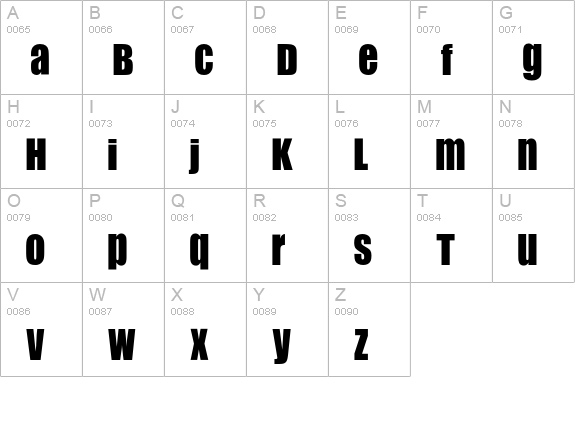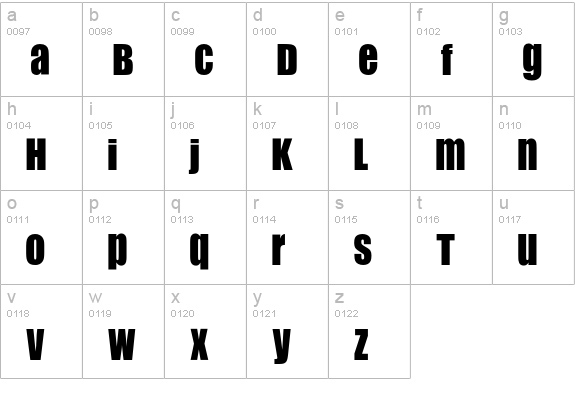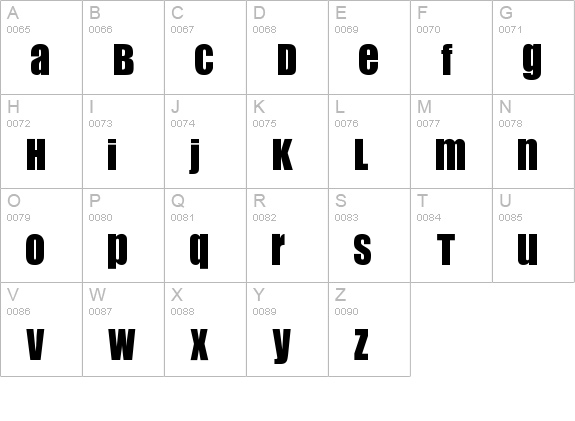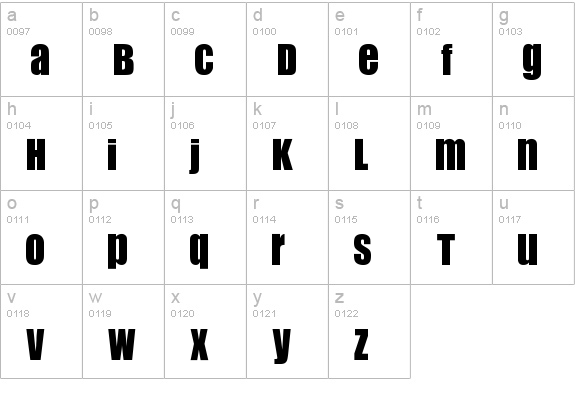
FlipFlop Font Details
Introducing FlipFlop font - a versatile and modern typeface perfect for adding a fun and playful touch to your design projects. With its unique flip and flop style, this font is sure to catch the eye and make a statement. Whether you're working on branding, advertising, invitations, or any creative project, FlipFlop font will bring a fresh and dynamic look to your work. What's even better is that FlipFlop font is available for free download at FontsMarket.com! This means you can easily access this stylish font and incorporate it into your designs without any cost. So go ahead, unleash your creativity with FlipFlop font and watch your designs come to life!